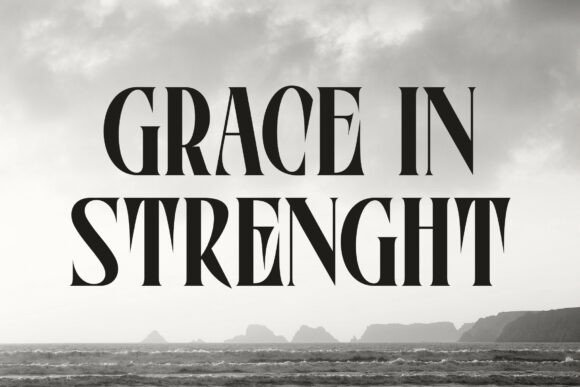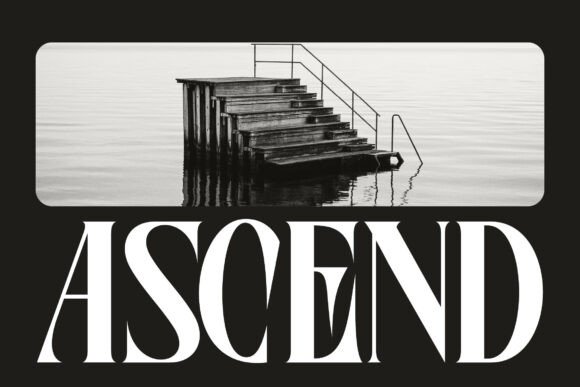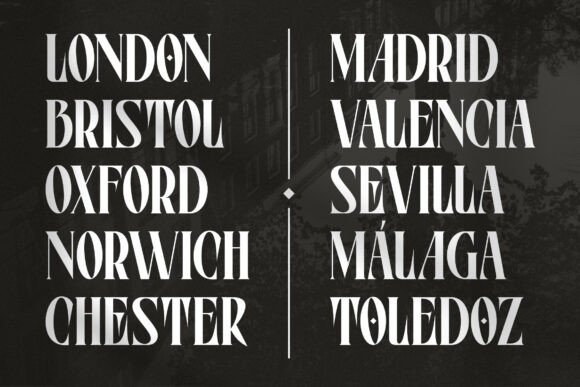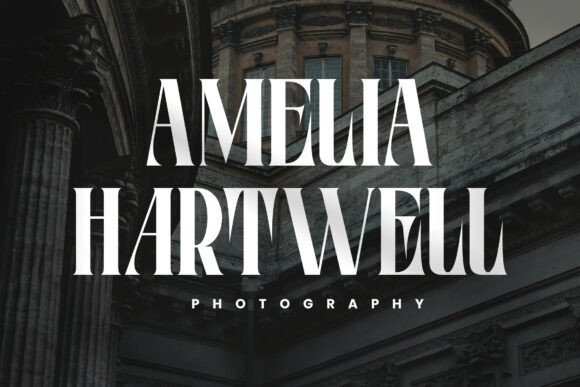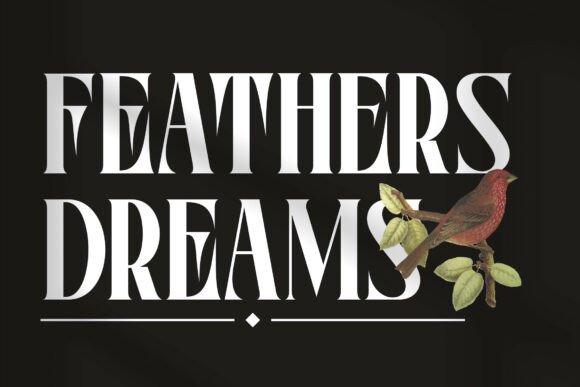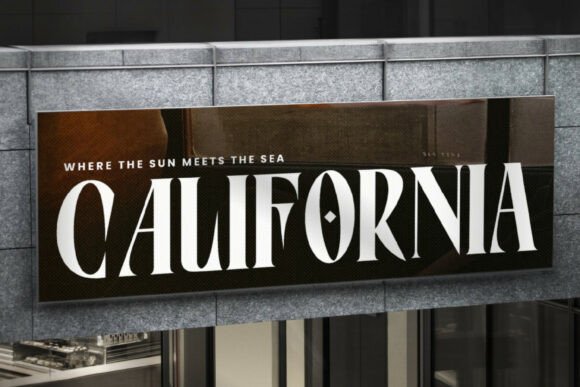
Introduction to Erione Font Font
Fonts play a crucial role in design, and the Erione Font font is a typeface that brings both character and versatility to any project. Whether you’re working on a branding project, a website, or a print design, the Erione Font font offers a unique style that can elevate your work.
Embark on a design journey into the realm of Erione, a digitally-advanced serif font crafted to make a lasting impact to your audience.
Its bold and assertive profile embodies an air of authority that confers a high-end flair to your designs Anchored in sturdy letter structures, crisp detailing, and clearly distinguished stroke contrasts, Erione undeniably compels attention, ensuring your designs carve a unique place of their own.
Key Features of Erione Font Font
Why Choose Erione Font Font?
The Erione Font font is more than just a typeface – it’s a design tool that helps you communicate your message with style and clarity. Its unique character set and versatile design make it suitable for a wide range of applications, from elegant invitations to bold headlines.
With its carefully crafted letterforms and balanced proportions, the Erione Font font ensures readability and visual appeal across all mediums.
What makes Erione Font font special?
The Erione Font font stands out with its unique design, exceptional readability, and versatility across various design applications.